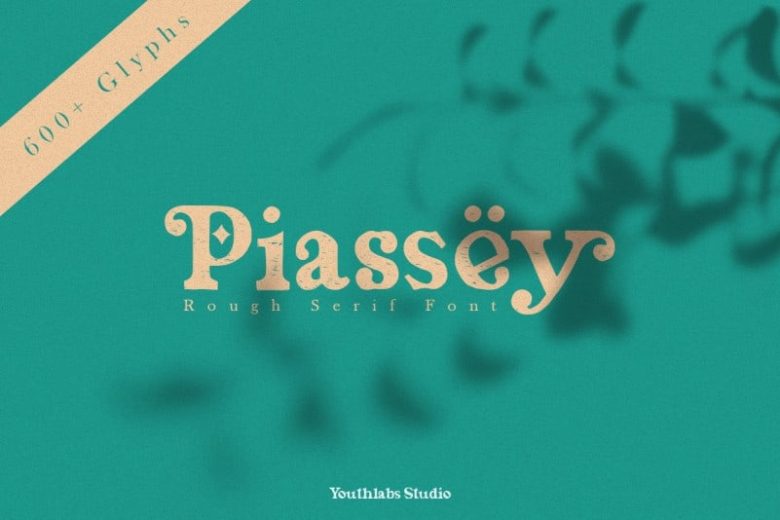
Piassey Rough Serif Font
Piassey Rough Serif Font made for fulfill design needs that require a natural texture. Piassey have More Alternative Character, and Multilingual Support. It’s a grotesque with a subtle texture, ideal for display typography, advertising, logos, invitations, stationary, posters, labels, and banners.
Piassey Rough Serif Font is a very versatile font. you can use this font to make perfect various design like Product Design, Tshirt Design, Card Design, Merchandise Design and many more. you can also improve more than 600 Glyphs in Piassey. Completely with Slant Mode made your design look cool.